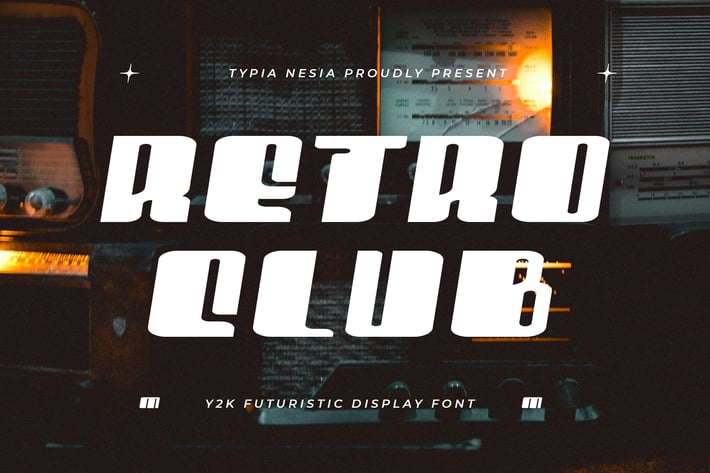
Retro Club - Bold Italic Futuristic Display font
Retro Club - Bold Italic Futuristic Display font - Modern Retro Tech Sc-fi Font
Retro Club is a bold italic futuristic display font that perfectly combines modern retro vibes with a techno-inspired edge. This font radiates energy and style, making it ideal for projects that require a futuristic, bold, and dynamic aesthetic, such as branding, gaming titles, sci-fi posters, tech branding, digital artwork, music album covers, logos, and anymore. Whether you're aiming for a retro touch or a futuristic edge, this font brings versatility and boldness to your projects. Comes with a comprehensive set of uppercase and lowercase letters, punctuation, numerals, and ligatures, along with exciting alternates for creative customization. With multilingual support, it caters to a global audience, ensuring your designs reach far and wide. Designed for creatives who seek a balance between bold retro aesthetics and modern innovation, Retro Club adds a striking presence to any visual concept. It’s perfect for creating impactful, futuristic, and memorable designs.